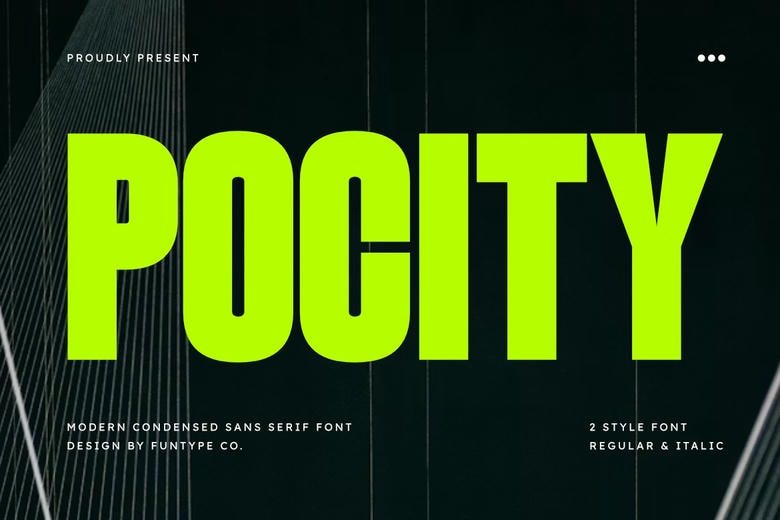
Pocity Font
Pocity is a bold and powerful, high-impact modern condensed sans serif font that is designed for maximum visibility and a clean and contemporary look. This typeface, which has two different styles Reg. and Italic, is very flexible in terms of its usage in a design.
Its bold, thin typefaces and high-impact formatting attribute to it being an ideal option when it comes to headlines that are dominant, professional branding, social media graphics and high impact poster designs.
Picity can be used when you need a message that is delivered with confidence and clarity on both the digital and the print media whether it is a static or dynamic appearance.
Pocity Sans Serif Font